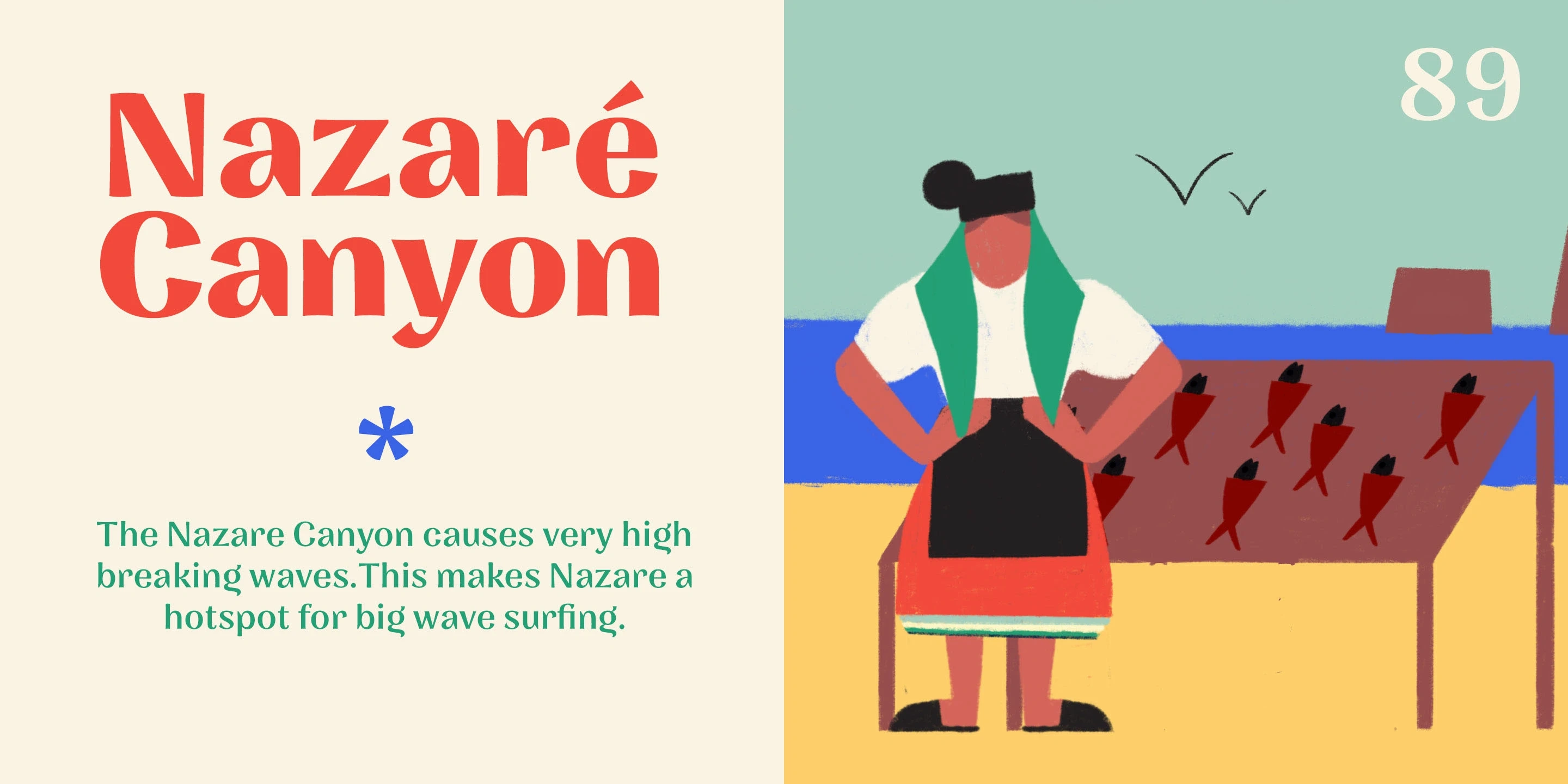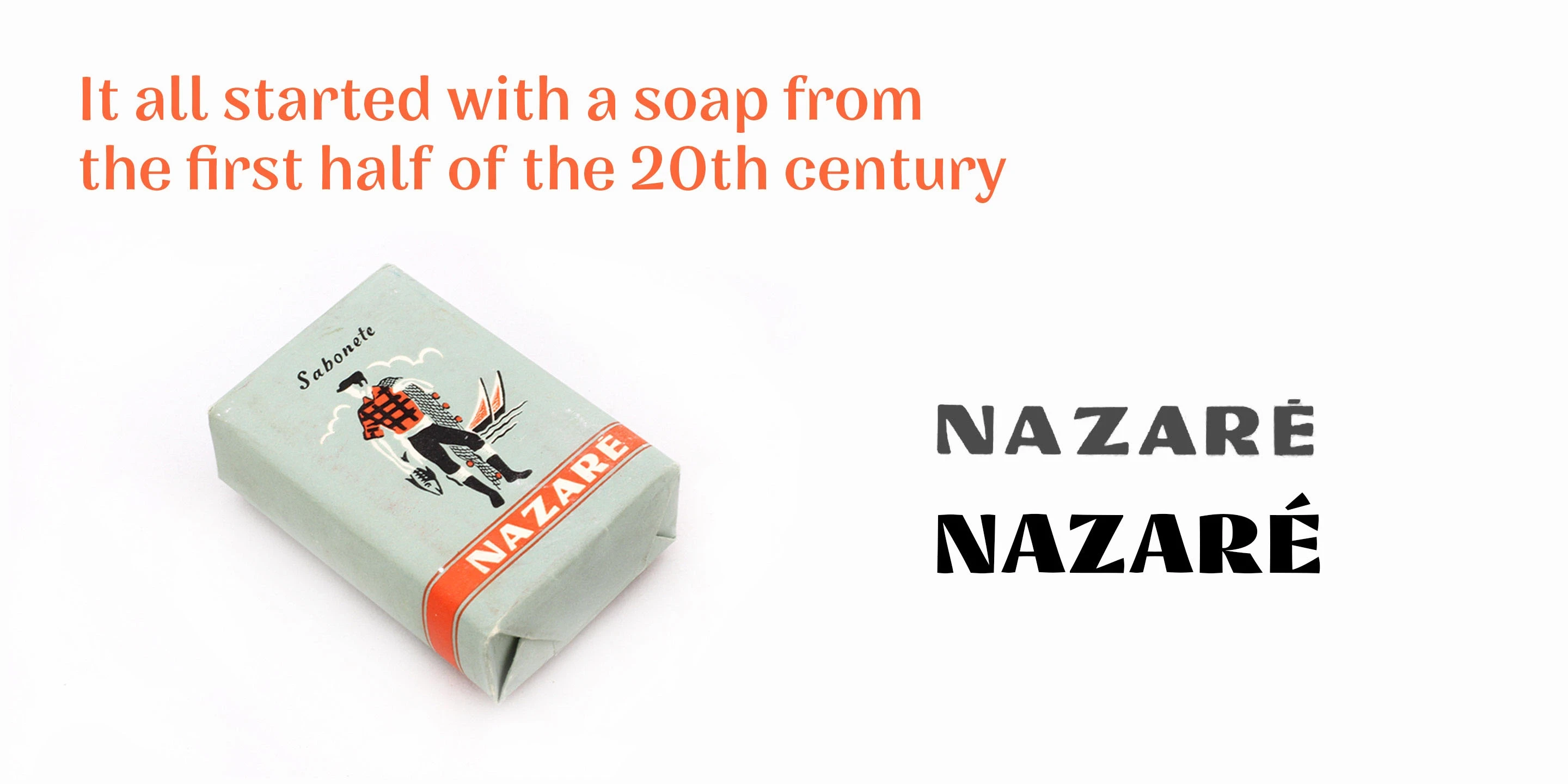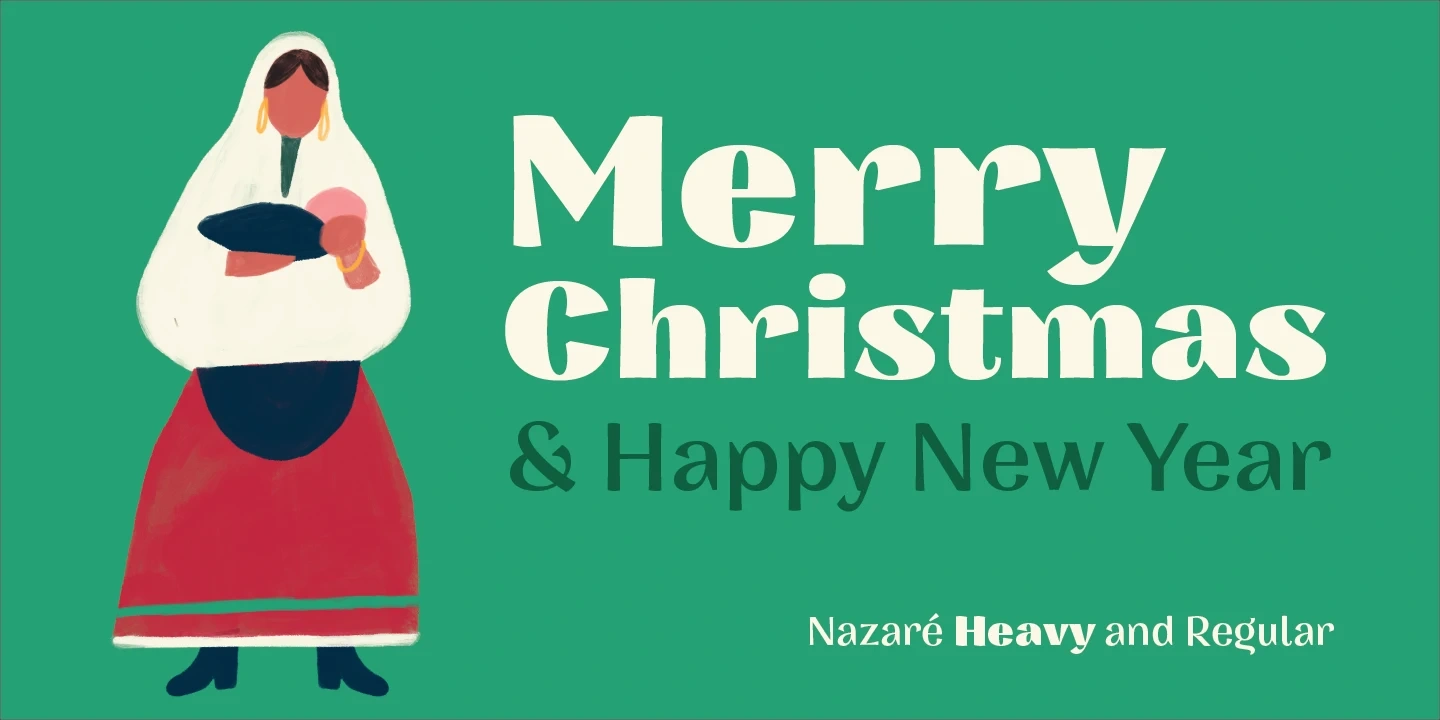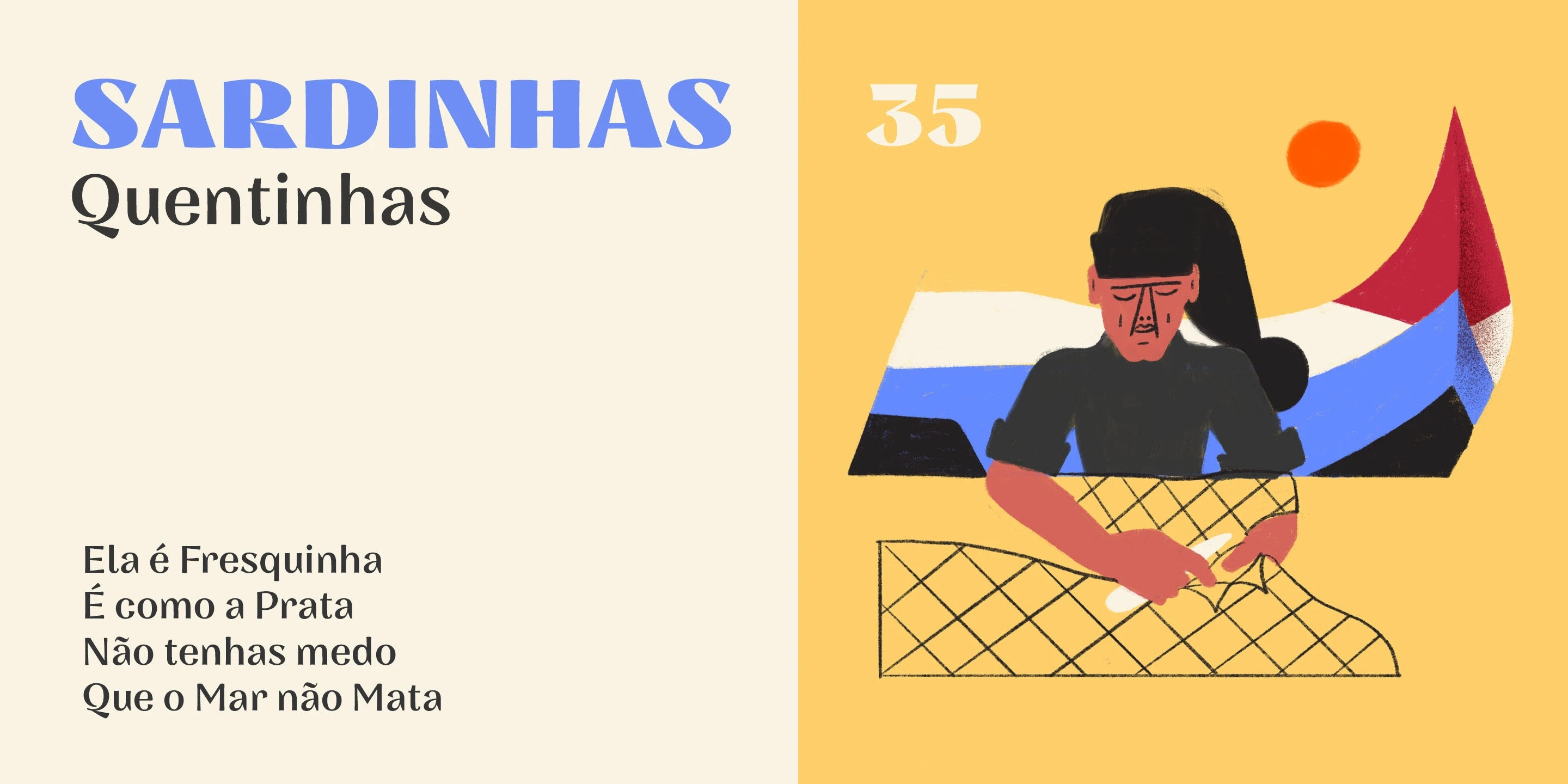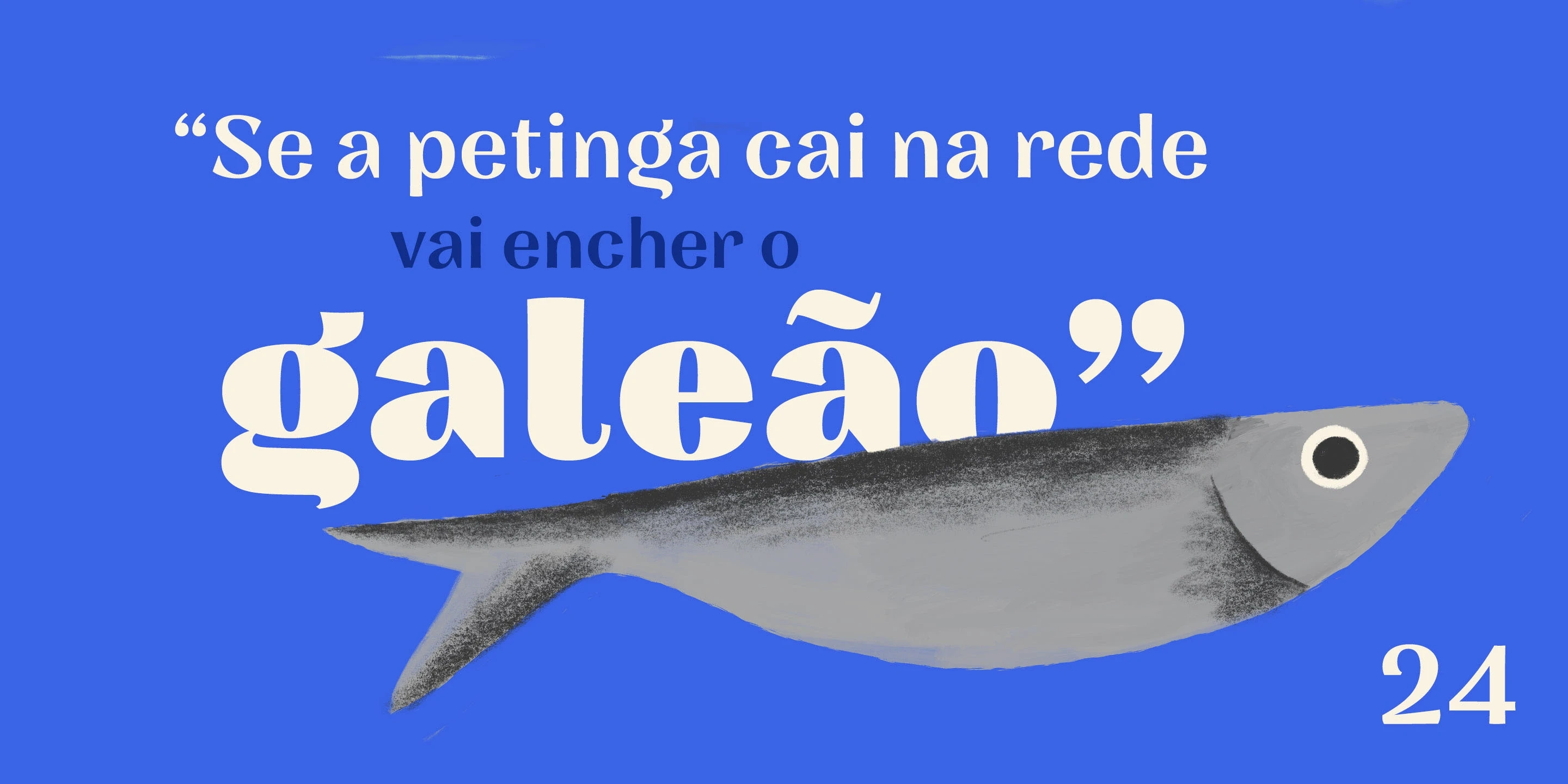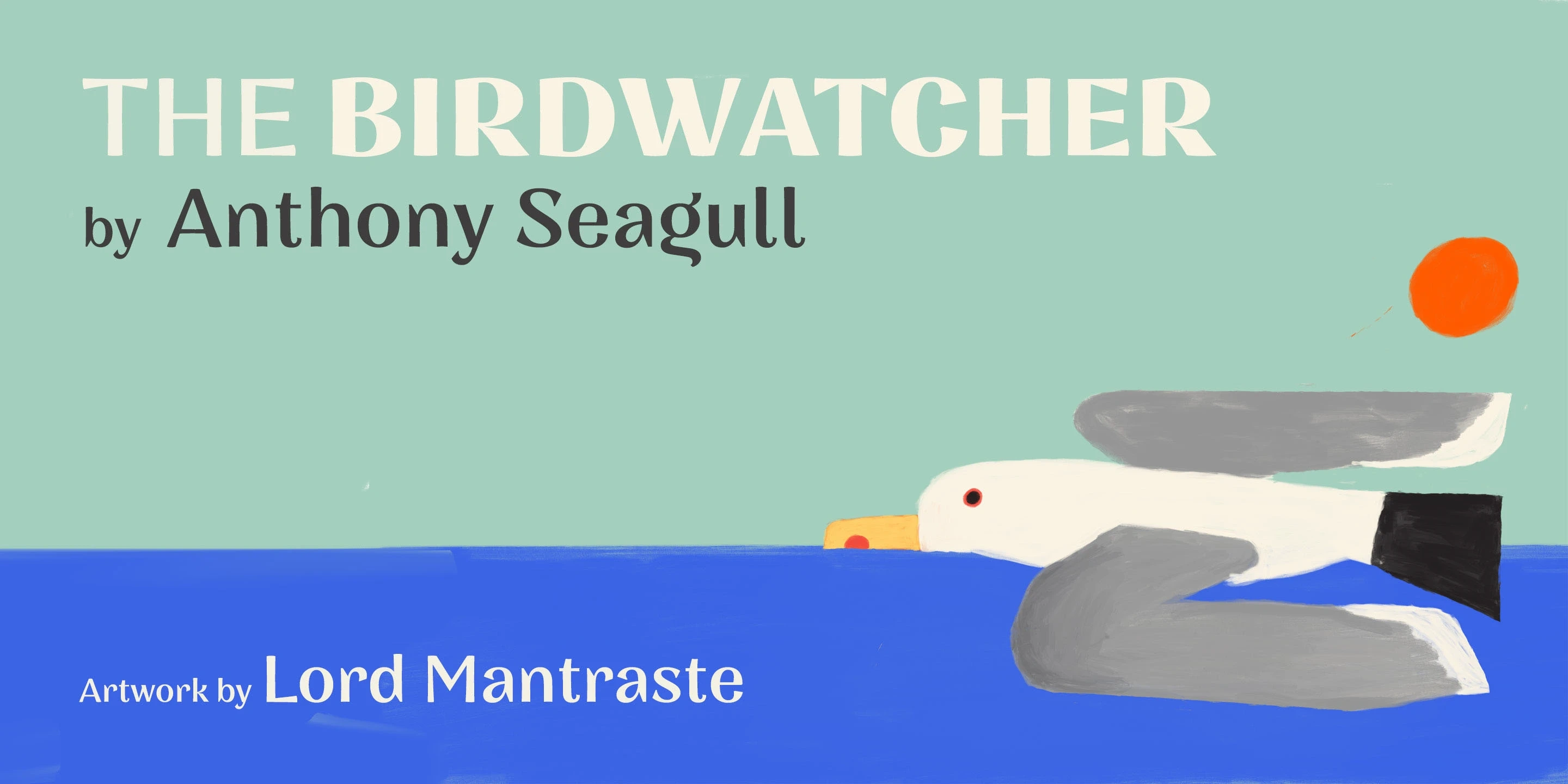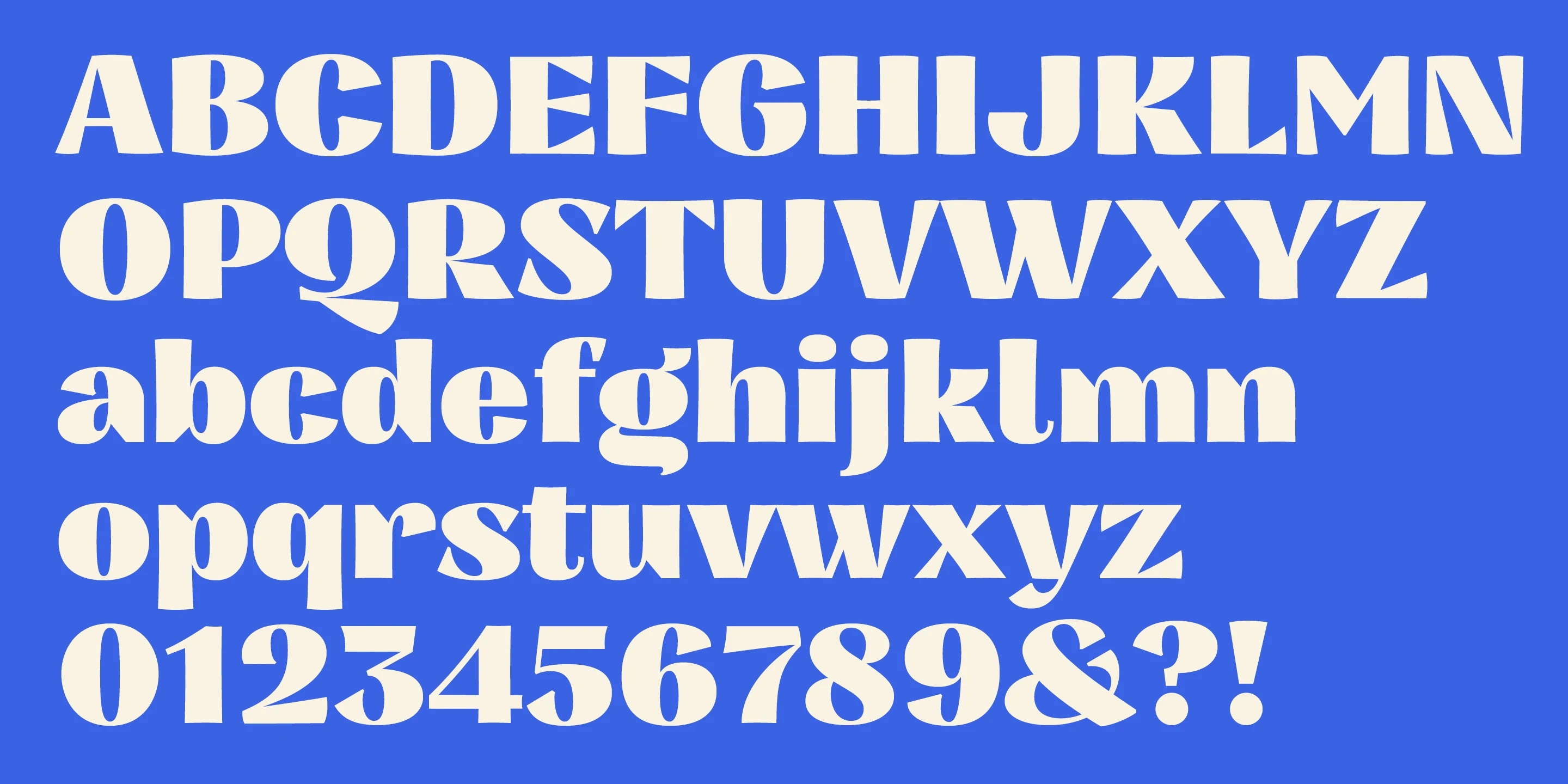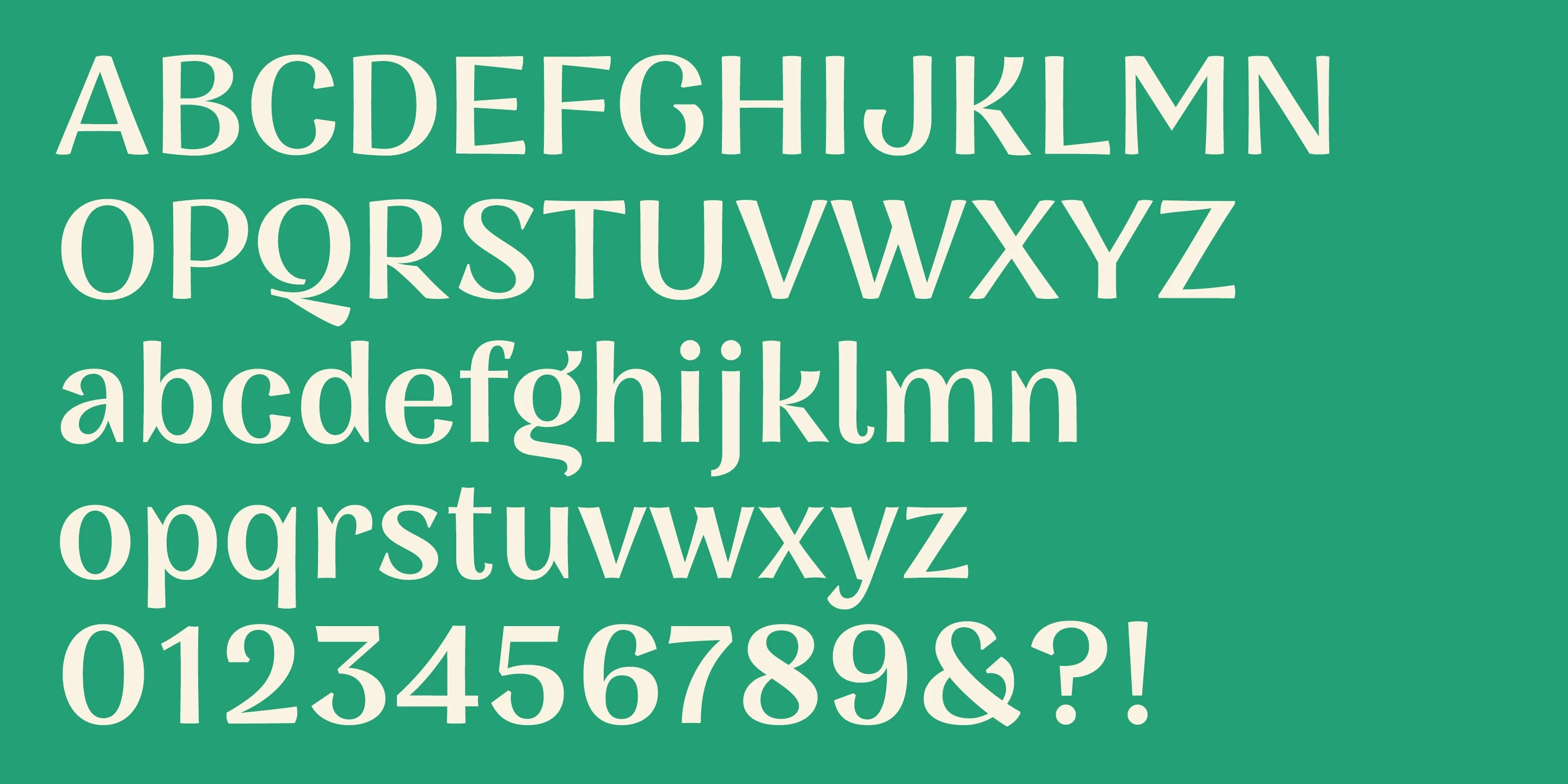
Nazaré Typeface
Typographic Revivalism and Beyond
Portuguese soap packaging with 5, lost in time, letters.
It all started with a Portuguese soap packaging from the first half of the 20th Century. The 5 uppercase letters that spell NAZARÉ were sufficient to drive the creation of this design.
Nazaré fits in a semi-serif category and has a large contrast. It works outstandingly in display use specially in the bolder weights that have even more contrast. The regular weights have a more moderate contrast and an overall less extravagant design, fitting best in the typographical conventions. This provides a better render in text use.
You can use this font in large headlines, logos, posters, book covers, and general display use as well as short strings of text.
Nazaré is the name of a small Portuguese fishing village known for its giant waves and peculiar people.
_ These glaring illustrations were crafted by the half Nazarene himself, and brilliant artist, Lorde Mantraste
Revivalism Type inspired by 20th-century Portuguese soap packaging.